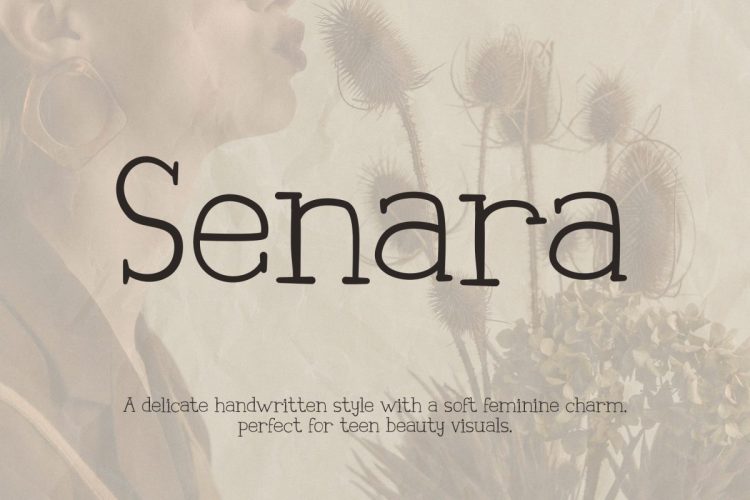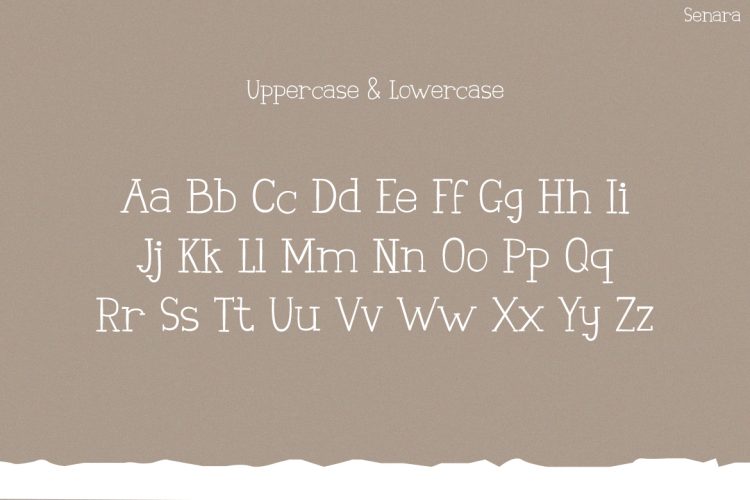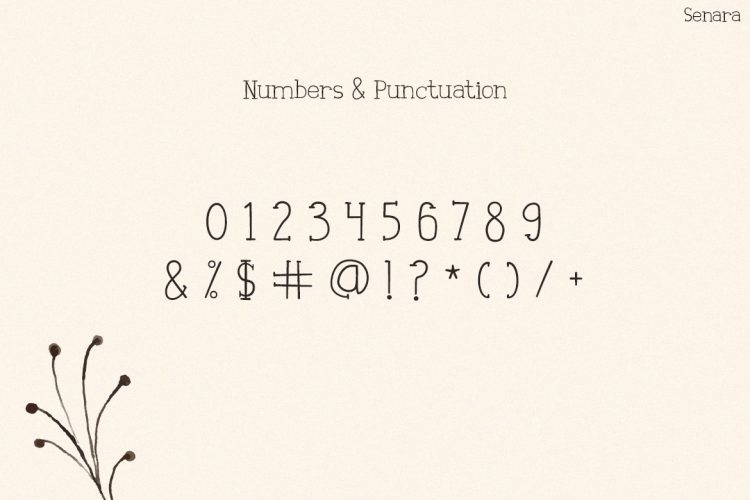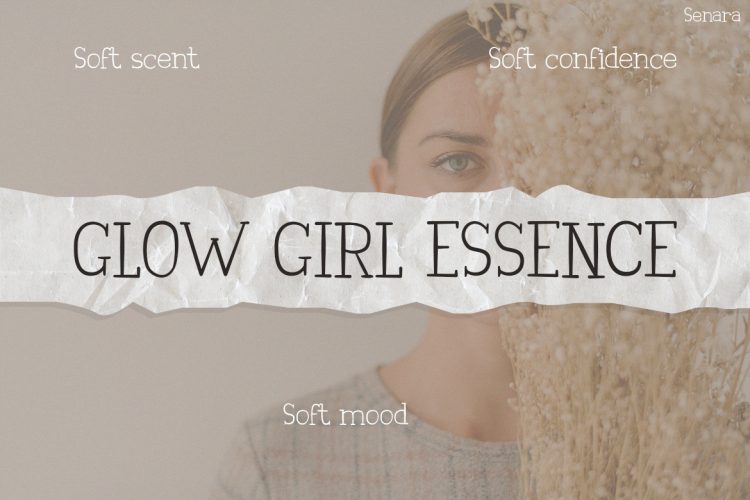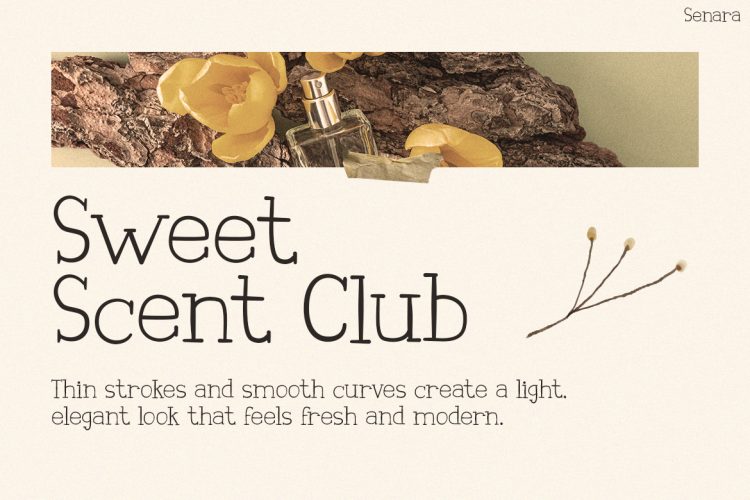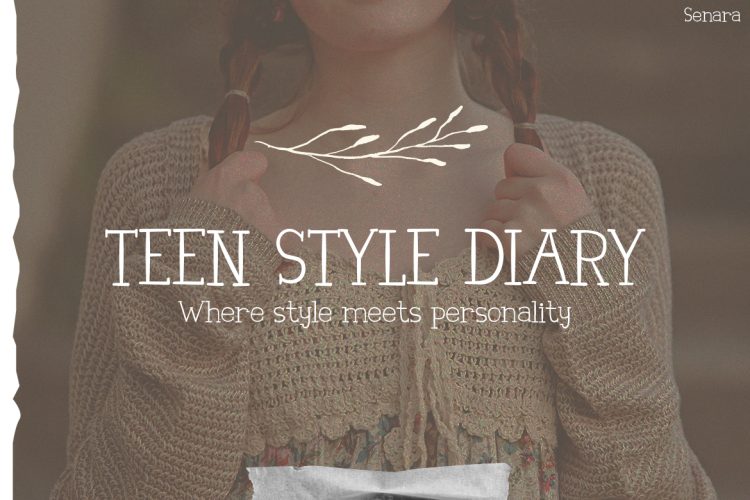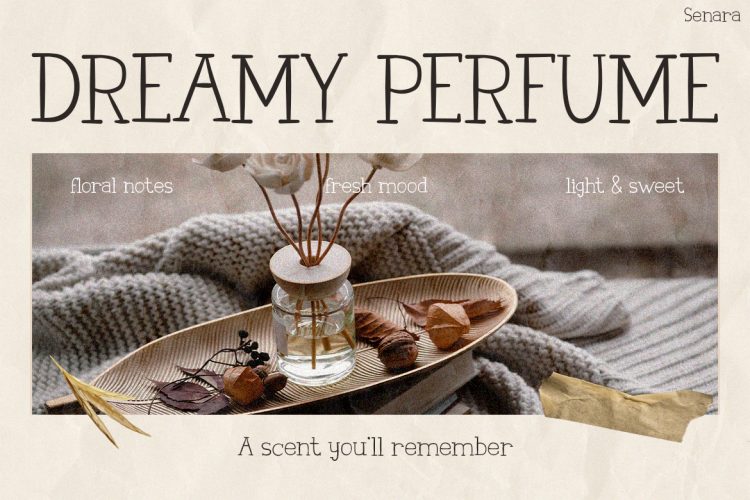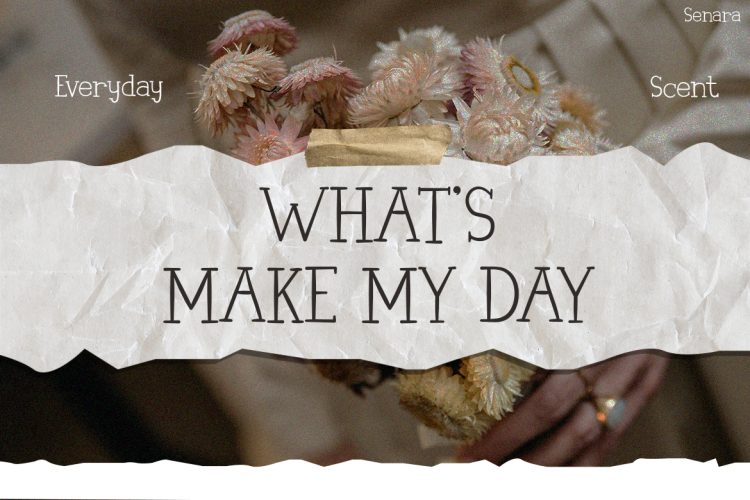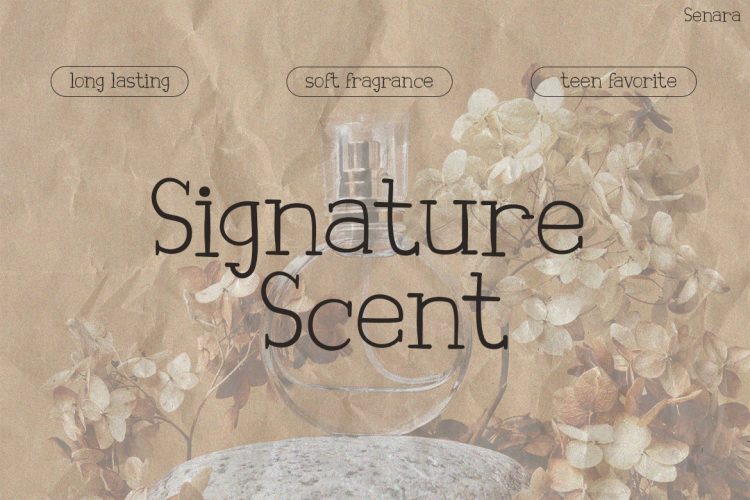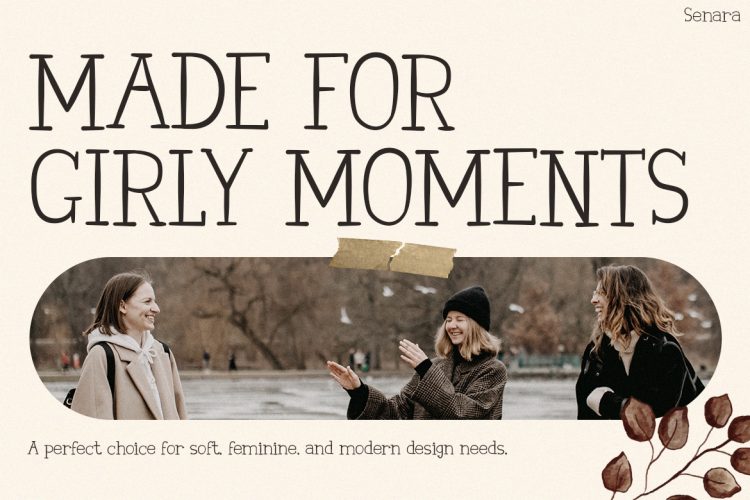
Instagram Font Senara โ Elegant Soft Serif for Aesthetic Designs
Instagram Font Senara is a graceful and modern serif typeface designed to bring softness, elegance, and calm beauty into your visuals. At first glance, its thin strokes and refined curves create a delicate and sophisticated look. Moreover, the gentle contrast and minimal details give it a timeless aesthetic that feels both classy and contemporary. Because of its clean and airy structure, the font enhances readability while maintaining a luxurious feel. In addition, Senaraโs subtle charm makes every word look polished and emotionally appealing. As a result, itโs perfect for designs that aim to feel feminine, aesthetic, and visually soothing.
Senara is a stylish serif font crafted for elegant and aesthetic content. Not only does it feature soft and refined letterforms, but it also blends beautifully with neutral tones, lifestyle imagery, and minimal layouts. Furthermore, the balanced spacing ensures a smooth and pleasant reading experience. Therefore, whether you are designing for social media, branding, or print, Senara adds a calm and premium touch. Ultimately, it transforms simple text into a beautiful visual statement that feels warm and sophisticated.
Because of its elegant and feminine style, Instagram Font Senara is perfect for:
- Instagram posts, stories, and aesthetic feeds
- Beauty, skincare, and perfume branding
- Lifestyle blogs and editorial designs
- Wedding invitations and feminine branding
- Product packaging with a soft, premium look
- Quotes, mood boards, and creative content